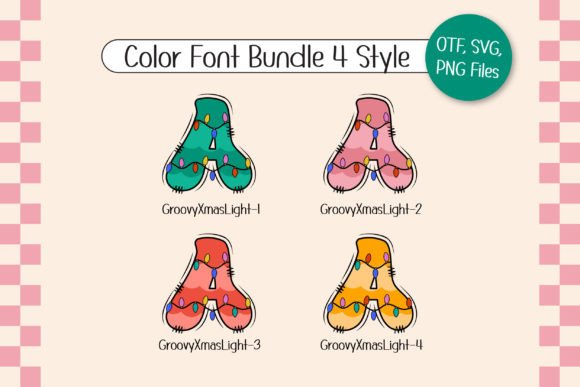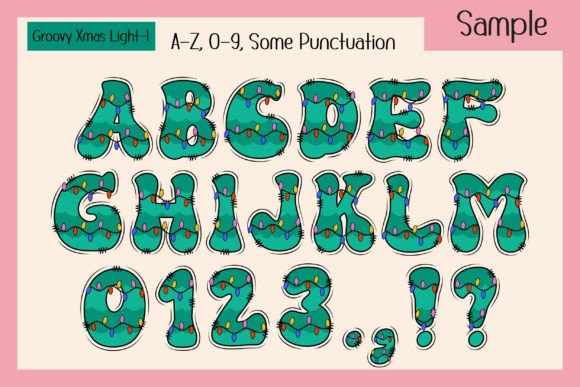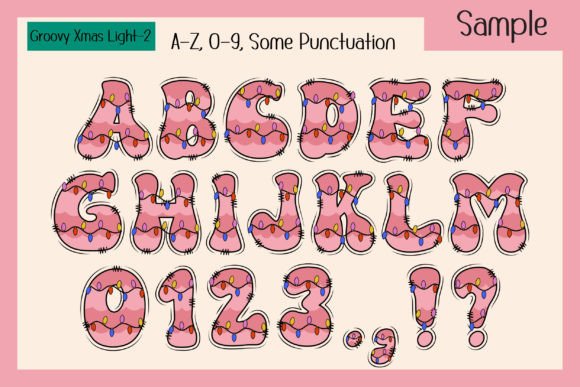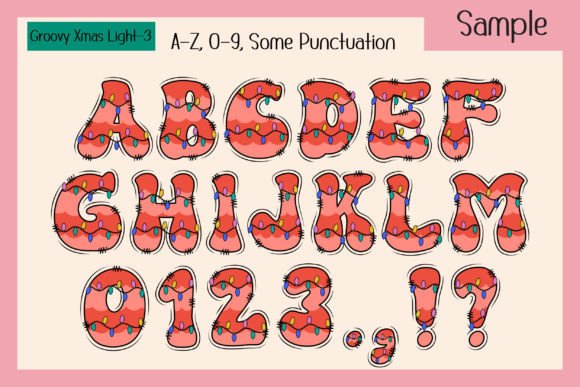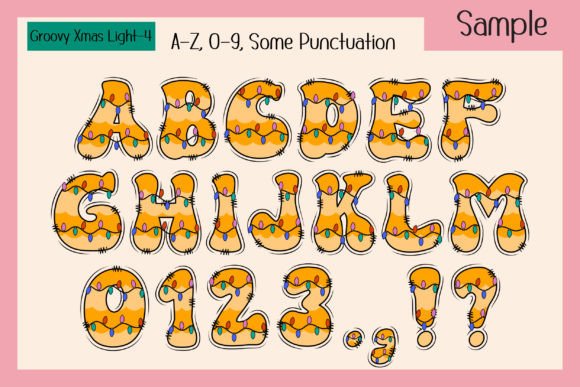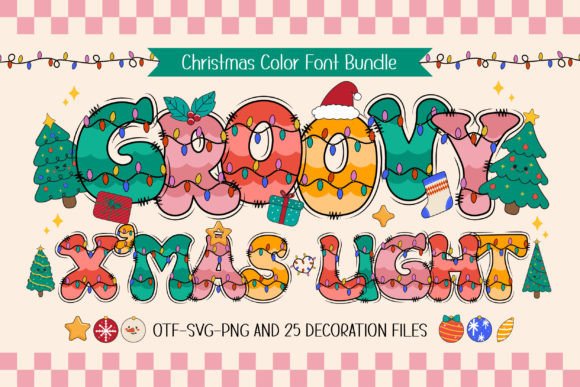
Introducing Groovy X’mas Light: The Ultimate Festive Font for Your Holiday Designs
Are you looking for a unique and eye-catching font to add a touch of nostalgia and retro charm to your holiday designs? Look no further than Groovy X’mas Light, a festive font inspired by the twinkling lights on Christmas trees. This one-of-a-kind font is infused with groovy retro tones and layered with intricate tree details in each letter, making it the perfect choice to illuminate your holiday designs with joy and retro charm.
A Festive Font Like No Other
Groovy X’mas Light is a carefully crafted font that combines the magic of Christmas with the fun and playfulness of retro design. Each letter is meticulously designed to resemble the twinkling lights on a Christmas tree, complete with intricate details and a groovy retro vibe. Whether you’re designing Christmas posters, T-shirts, or custom DIY craft projects, this font is sure to add a warm and nostalgic touch to your creations.
Four Christmas-Themed Color Styles to Choose From
Groovy X’mas Light features four Christmas-themed color styles to match your unique design needs. From classic red and green to more modern and bold color schemes, this font set has everything you need to create stunning holiday designs. Whether you’re looking for a traditional or modern look, Groovy X’mas Light has got you covered.
25 Bonus Matching Clip Arts to Enhance Your Designs
To take your designs to the next level, Groovy X’mas Light comes with 25 bonus matching clip arts. These clip arts are carefully designed to match the font’s retro and festive style, allowing you to add an extra layer of detail and personality to your creations. From Christmas trees and snowflakes to holly and bells, these clip arts are perfect for adding a touch of holiday cheer to your designs.
Tips and Ideas for Using Groovy X’mas Light